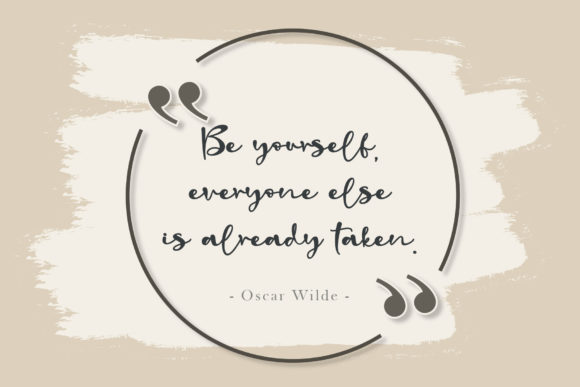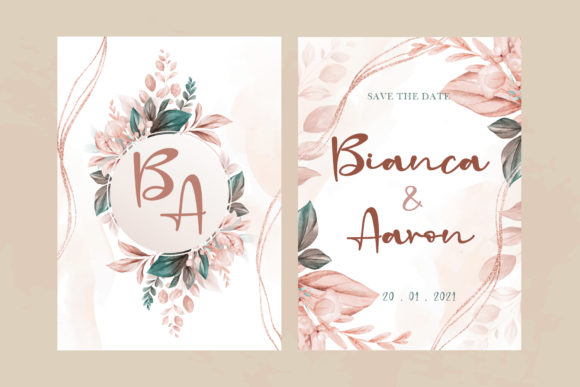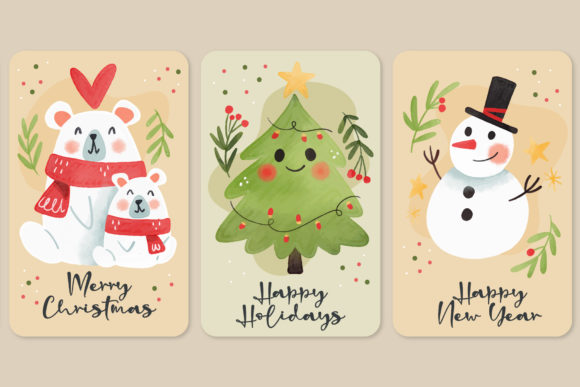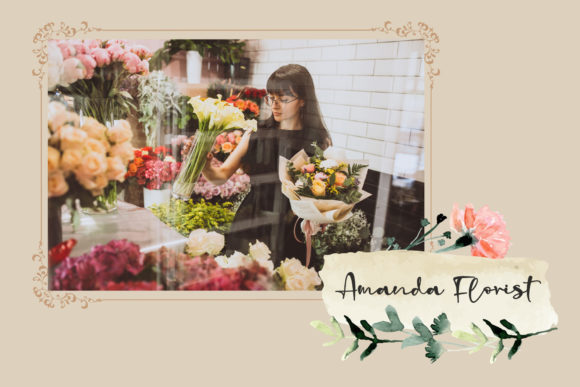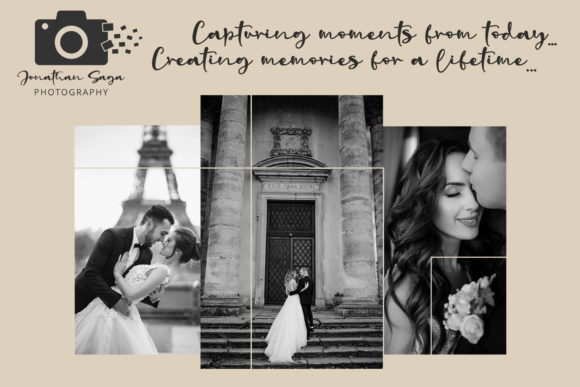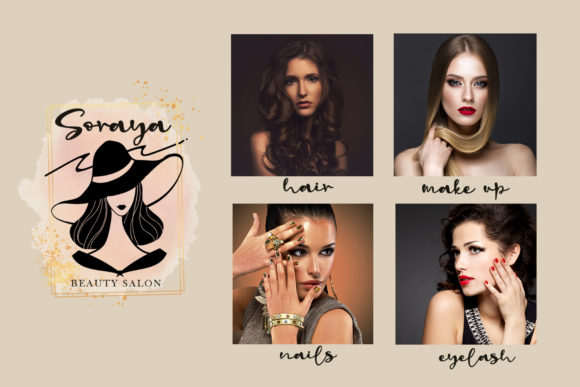
Introduction to Denada Font
Denada is a beautiful and flowing handwritten font.
Dainty and joyful, this font will be ideal for writing wedding invitations, cards or any other design that may need a romantic, personalized touch .